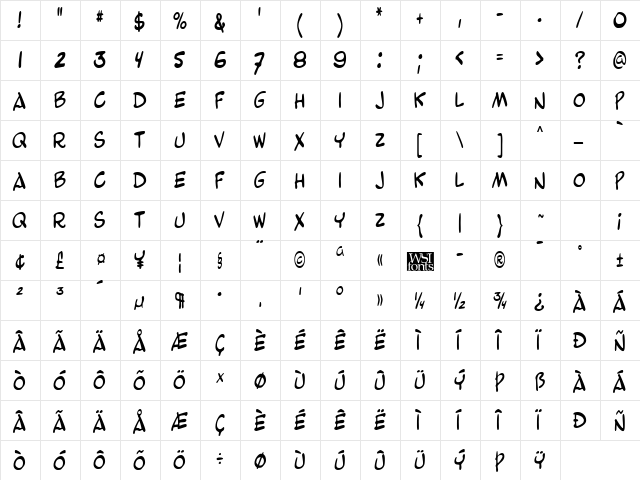
BeetleThin Regular
Design Context for BeetleThin Typeface
BeetleThin is a composed and adaptable typeface that performs quietly and consistently across a wide range of design contexts. Its slender proportions lend an understated elegance to any composition.